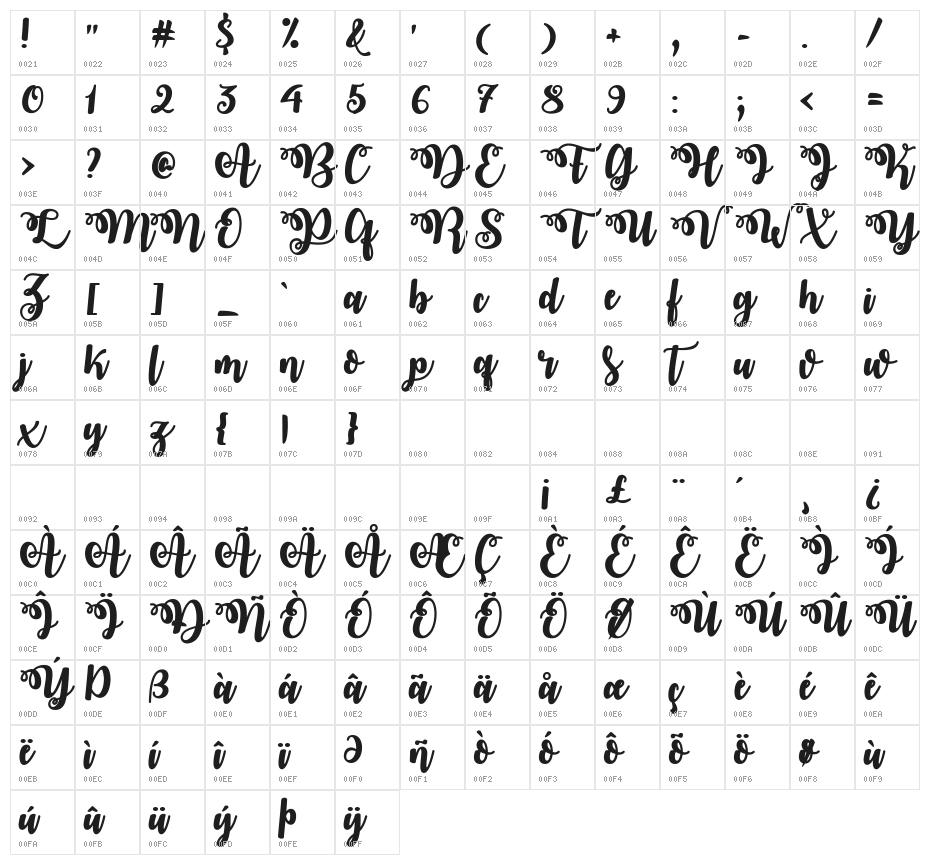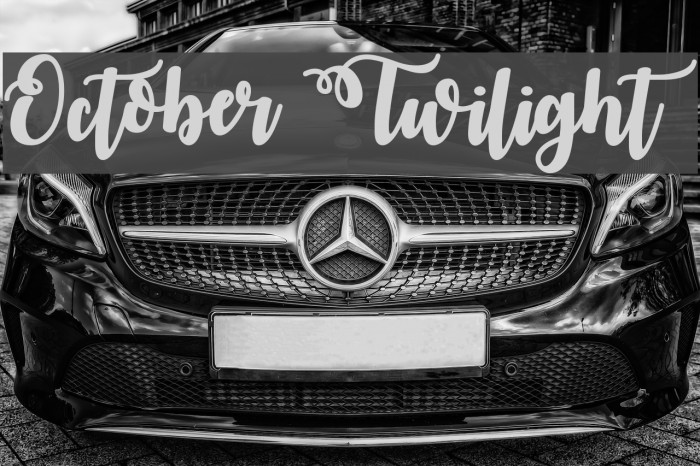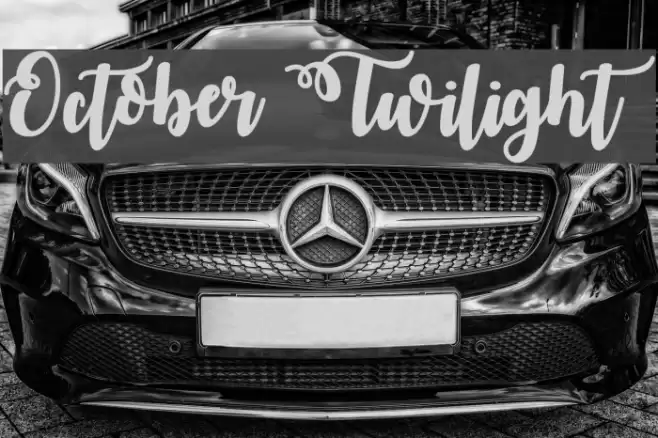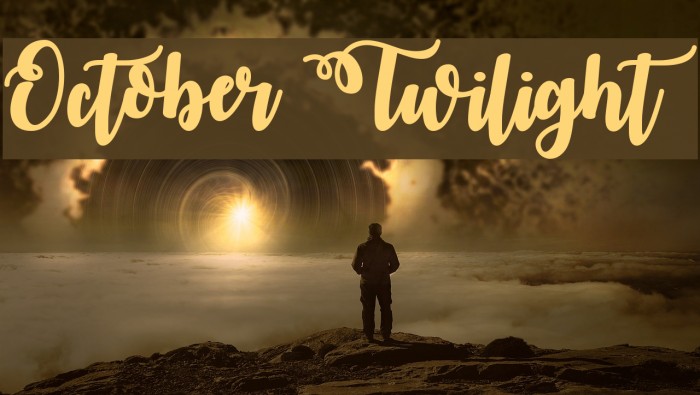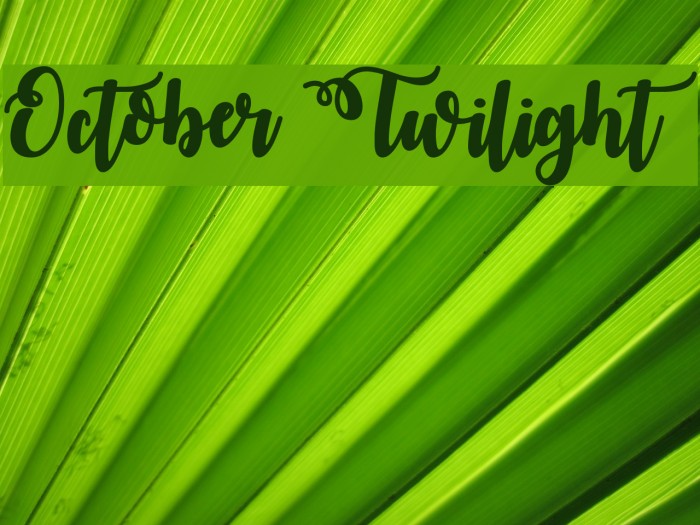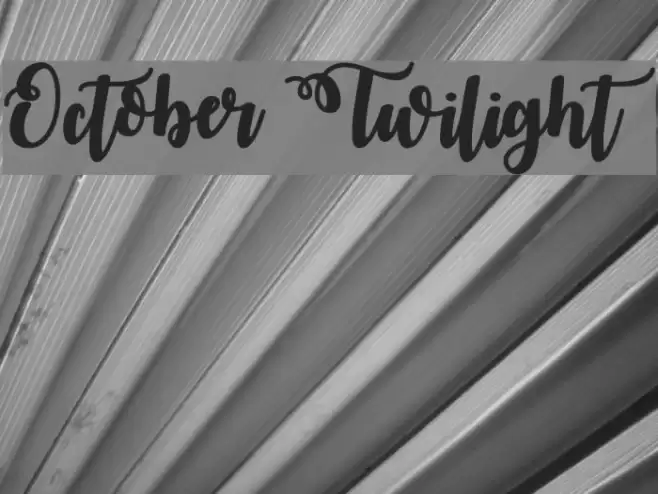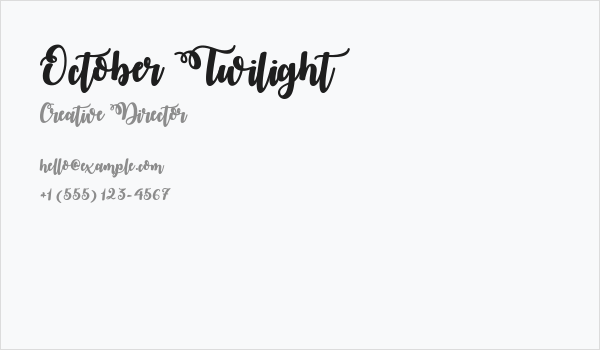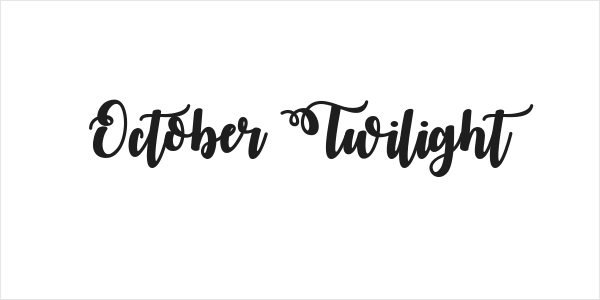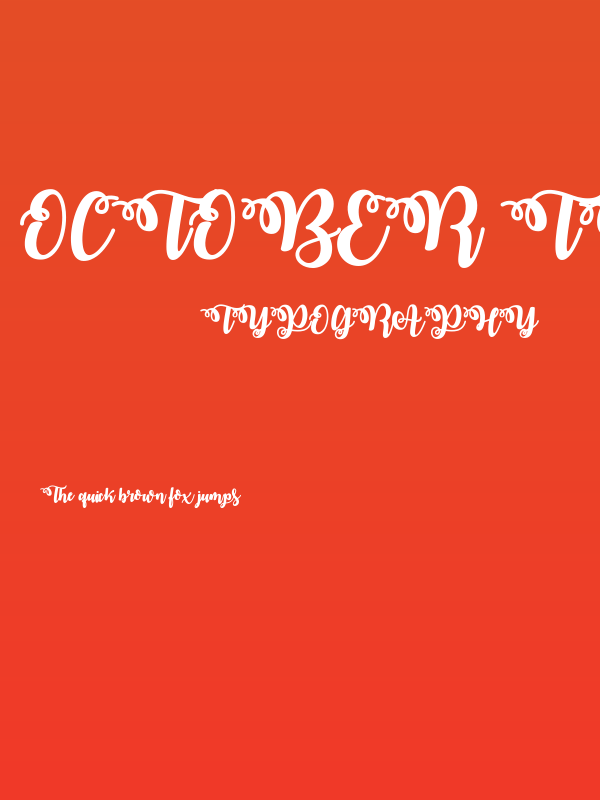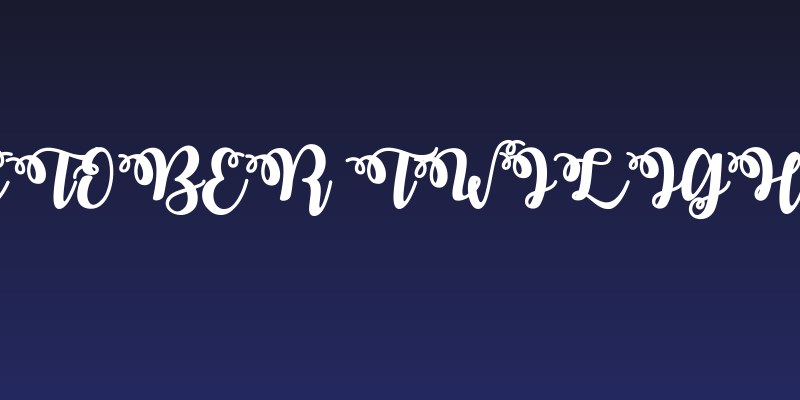
October Twilight Font
October Twilight Description
This font features a whimsical and decorative style, characterized by its playful loops and swirls that adorn each letter. The uppercase letters are particularly ornate, with intricate embellishments that give the font a festive and lively appearance. The lowercase letters maintain a bold and flowing script style, offering a smooth and continuous line that enhances readability while retaining an artistic flair. The numerals and special characters are equally stylized, ensuring consistency across all elements. This font's bold weight and medium contrast make it stand out, while the character spacing is relatively tight, contributing to its cohesive and compact look.
| Use Case | Headlines, Logos, Invitations |
| Proposed Projects | Ideal for invitations, greeting cards, festive banners, and creative branding projects. |